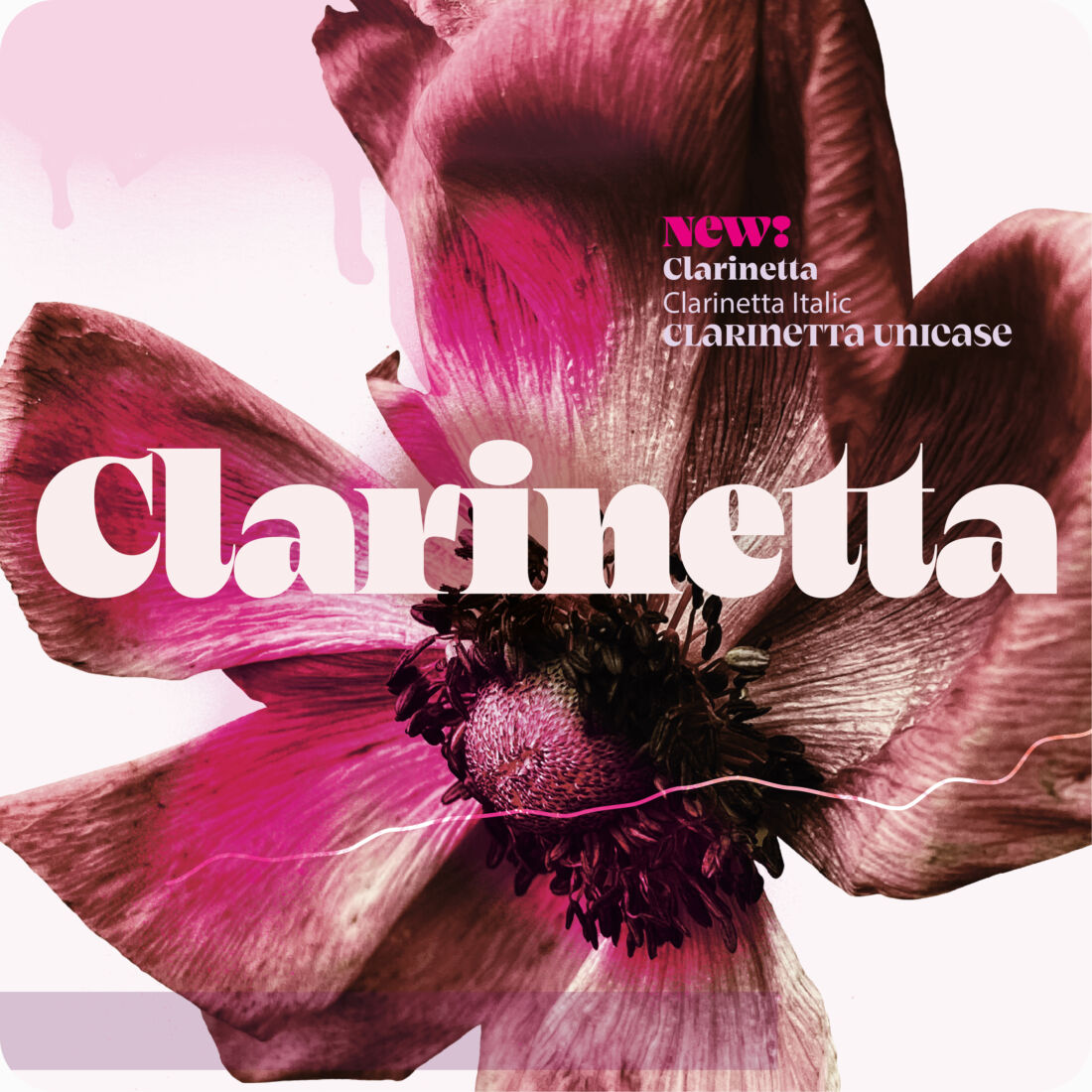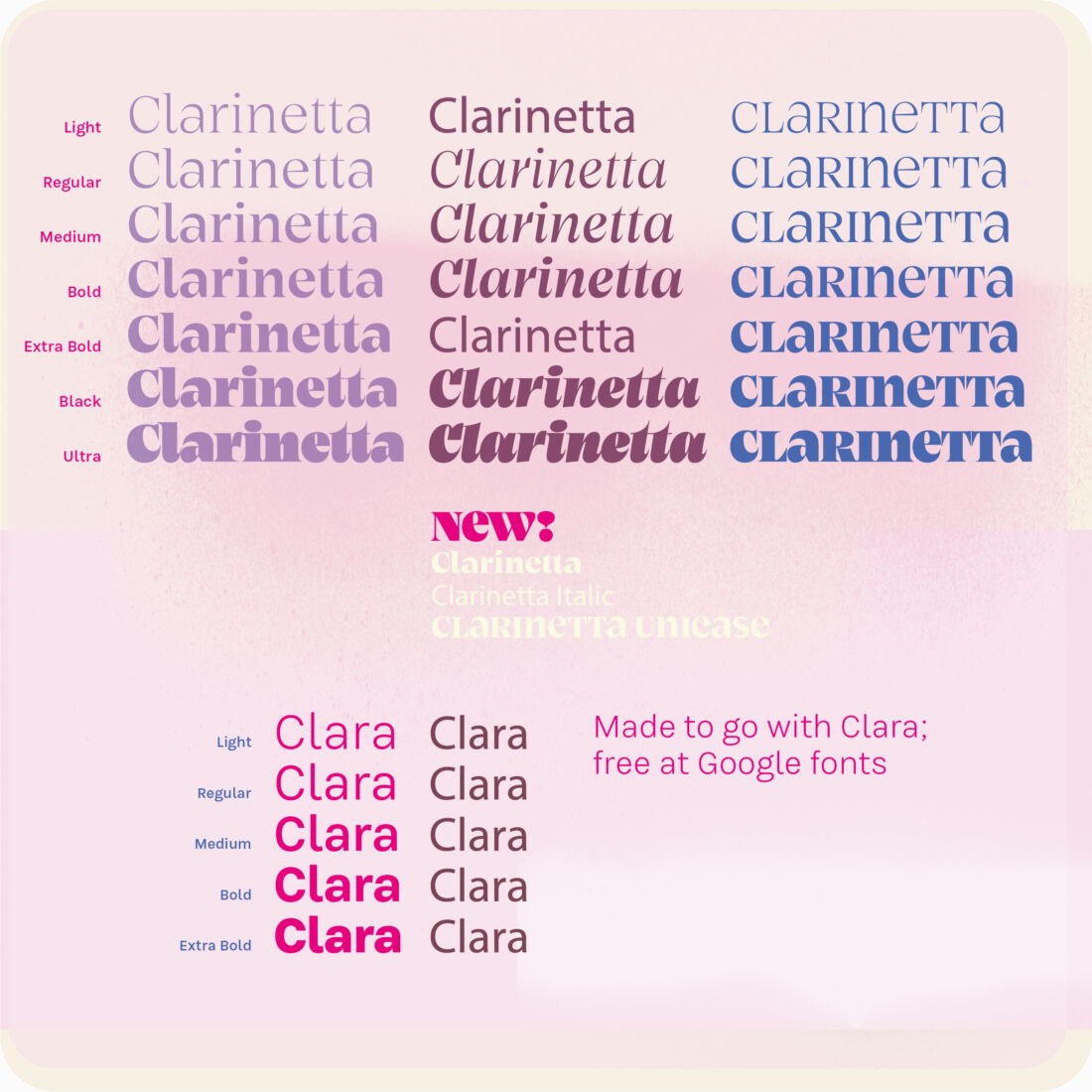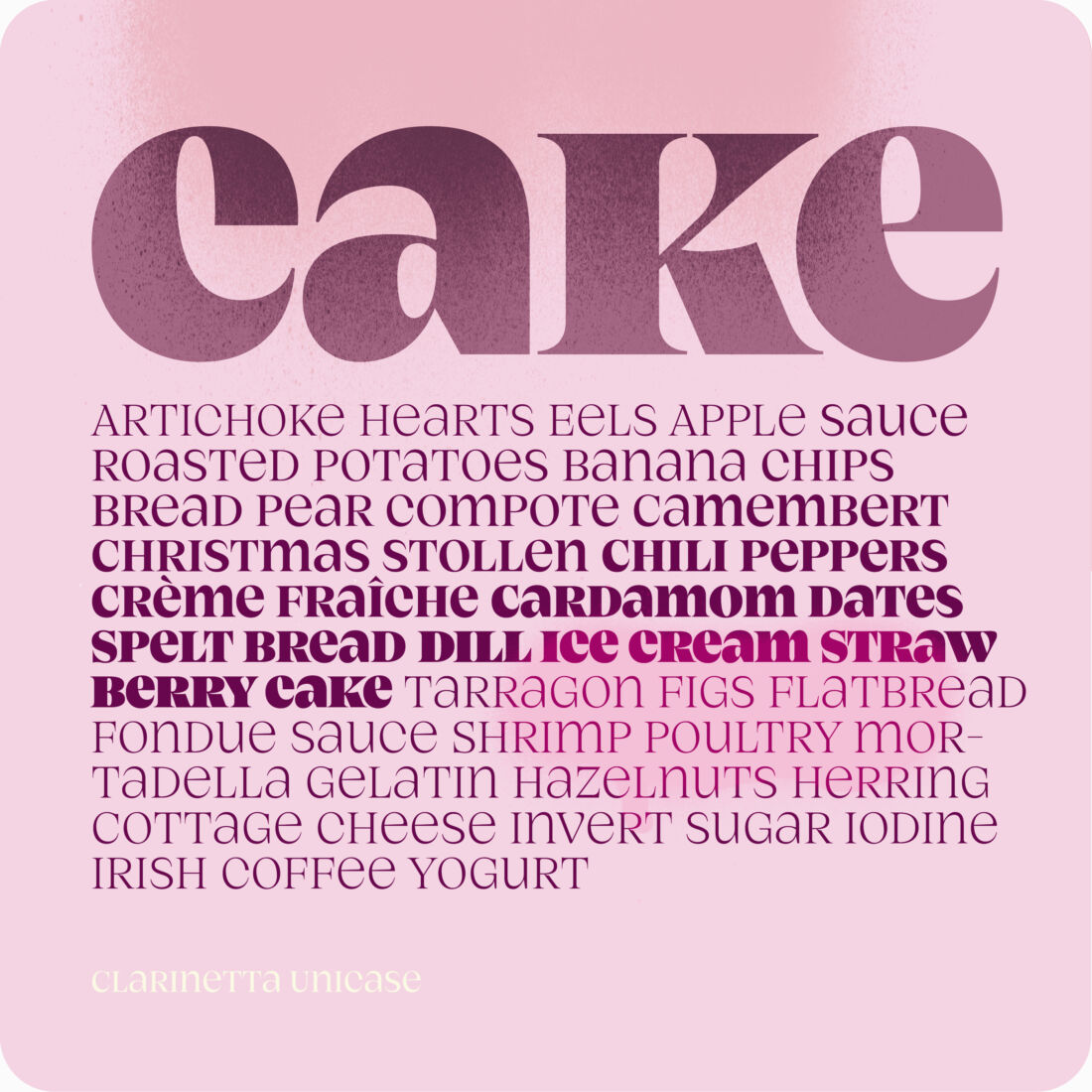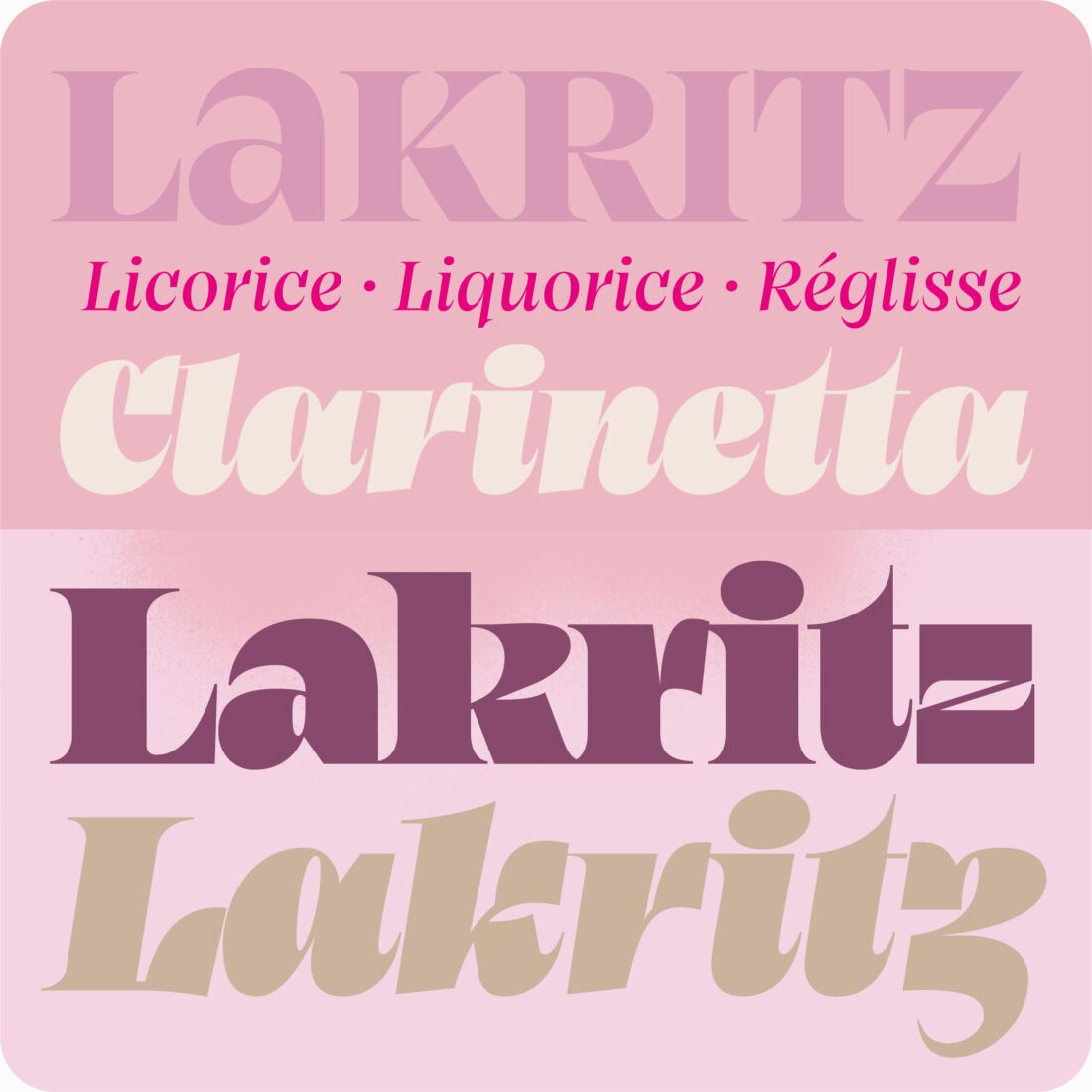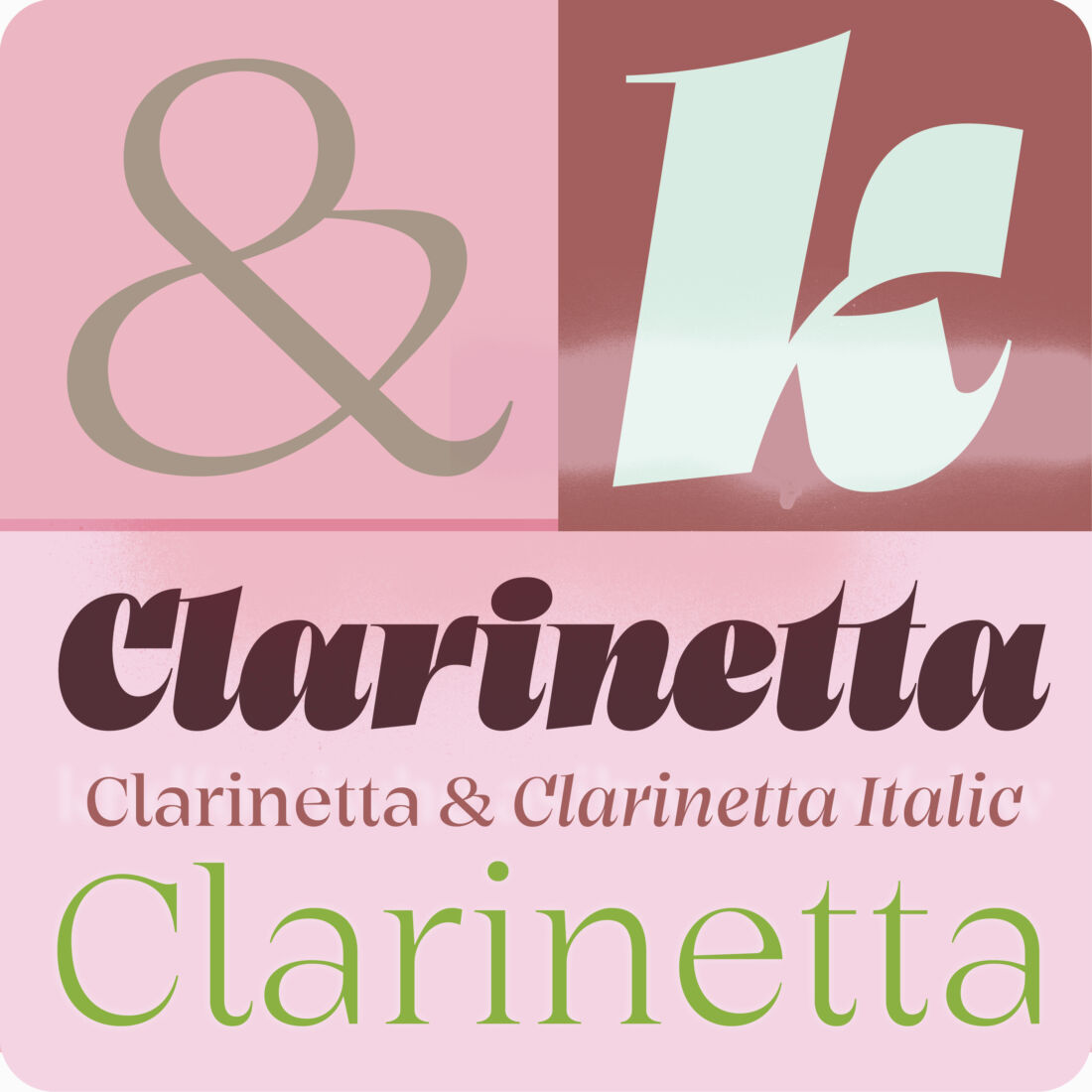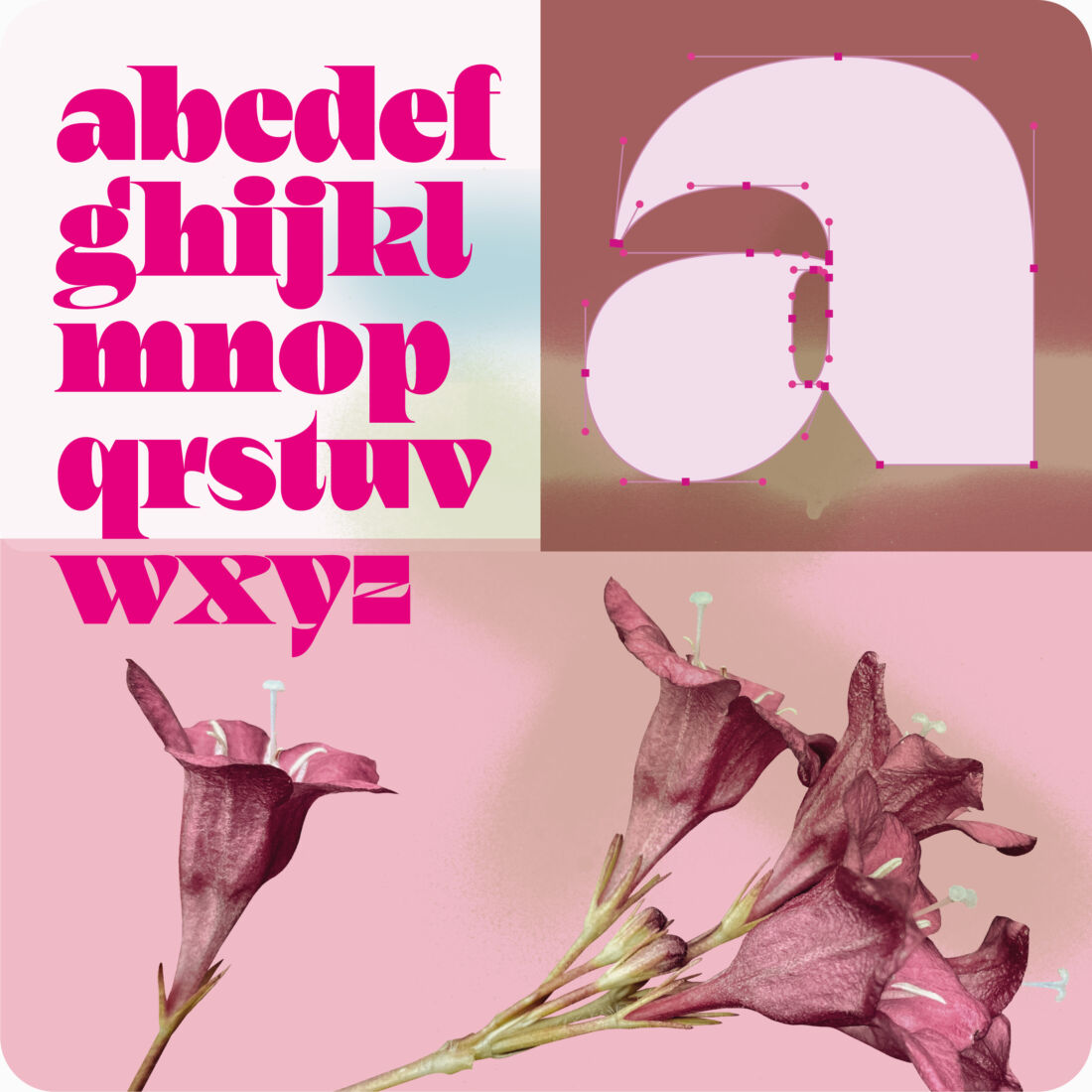
Clarinetta
Who Knew Serifs Could Be This Fun?
The Serif Serif Never Was
Just Another Serif
About Clarinetta
Clarinetta is an elegant serif typeface that embraces a classical concept—but interprets it boldly for contemporary use. The family is built on deliberately pronounced serifs and a striking contrast that commands attention, bringing a modern edge to time-honored typographic principles. The real maverick is the Ultra weight: so bold that its serifs actually touch, virtually standing on their feet in a delightfully uncompromising display of graphic confidence. The italic complements this with a classical, flowing stroke that adds movement and dynamism to any setting. Designed with comprehensive language support, Clarinetta offers a full Latin Extended character set, accommodating writers and designers across multiple regions. To make type choices even more flexible, the family includes three different numeral sets—tabular, proportional, and oldstyle—giving you the right figures for any context. For those seeking even more typographic playfulness, Clarinetta also comes in a special Unicase variant that takes the family in an entirely different direction.